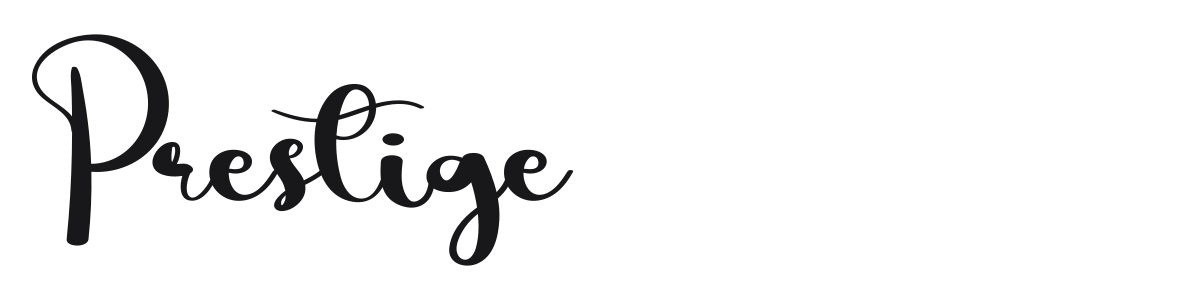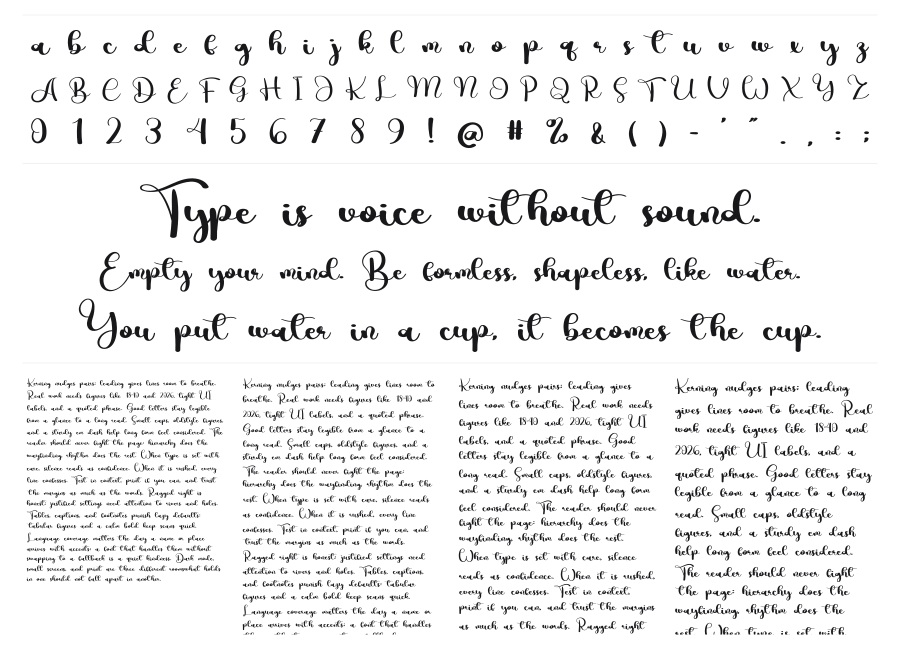
Prestige
Prestige is a bold brush script with a lively bouncing baseline and generous stroke contrast. The thick downstrokes and hairline upstrokes give it a handcrafted calligraphic feel that sits comfortably between casual and polished. It works well for branding, packaging, and any headline that needs warmth and personality.